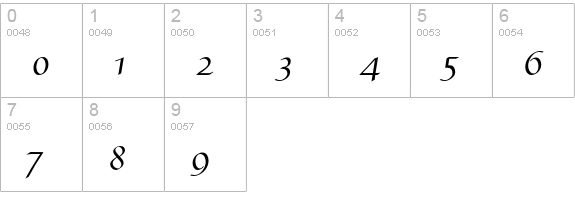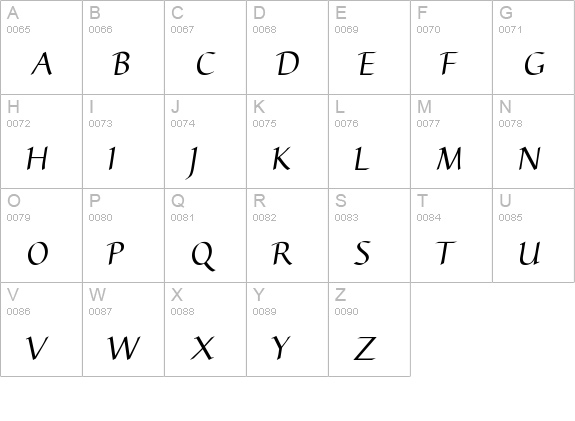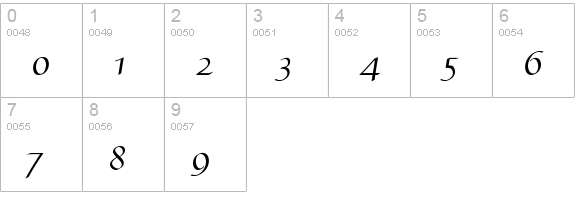
Augusta Std Font Details
Augusta Std is a stunning and elegant serif font that exudes sophistication and class. Its timeless design features delicate serifs and graceful curves, making it perfect for a wide range of projects, from formal invitations to luxury branding. The font offers excellent legibility and readability, ensuring that your message is communicated clearly and effectively. What sets Augusta Std apart is not only its impeccable design but also the fact that it is available for free download at FontsMarket.com. This means that you can elevate your designs with this premium font without any cost, making it an excellent choice for designers, creatives, and anyone looking to add a touch of refinement to their projects. Whether you're working on a wedding invitation, a high-end branding project, or simply want to give your designs a touch of sophistication, Augusta Std is the perfect font choice. Download it for free today at FontsMarket.com and experience the timeless beauty and versatility of this exquisite serif font.